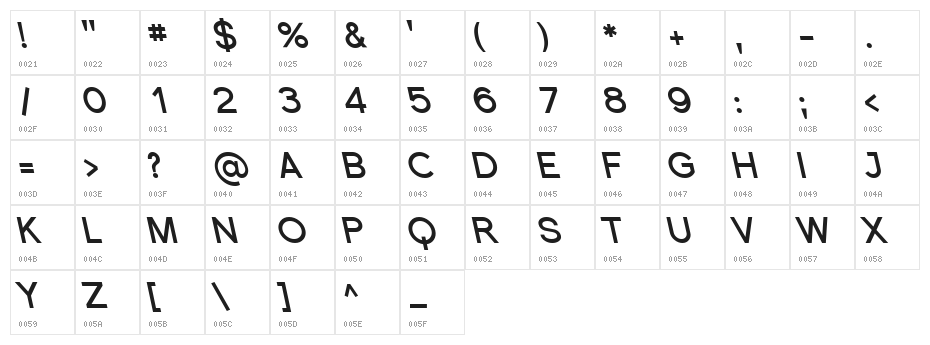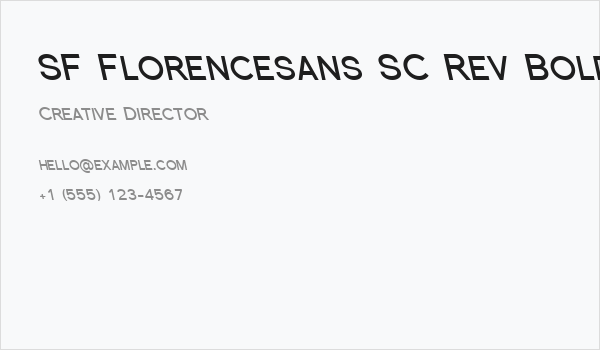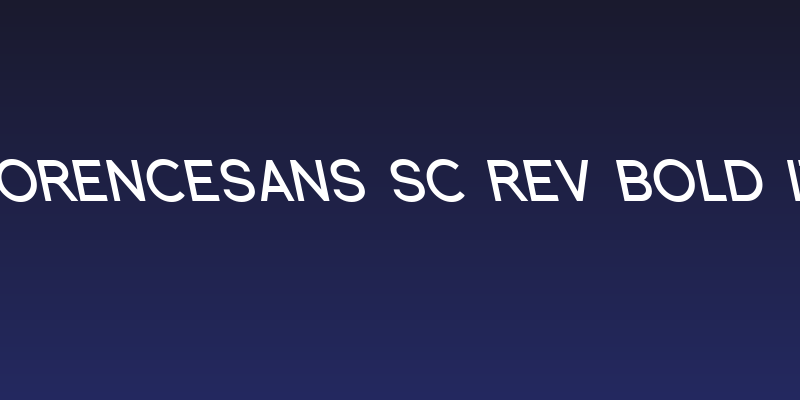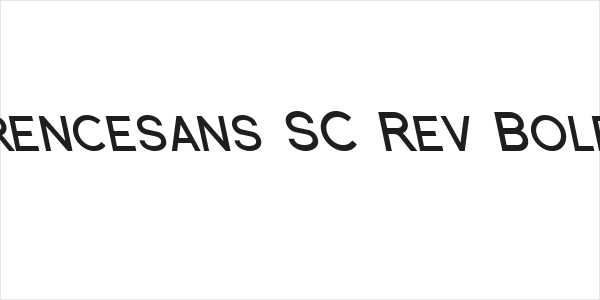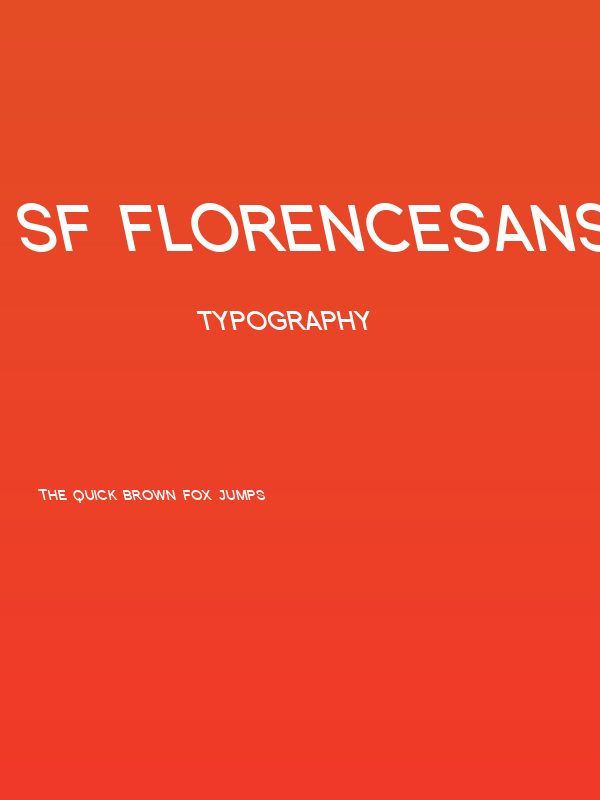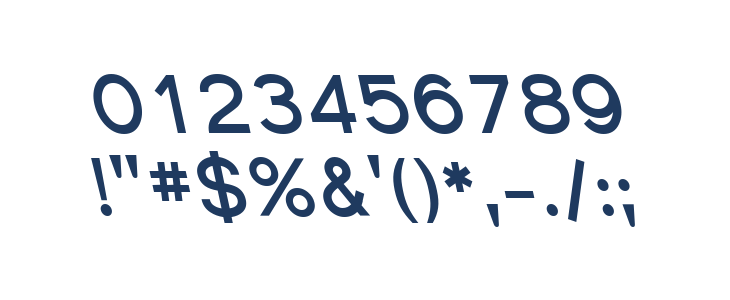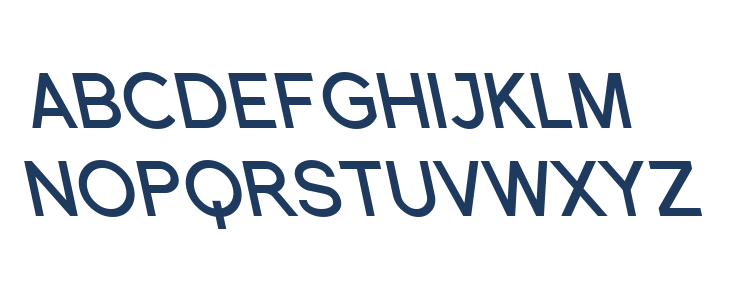
SF Florencesans SC Rev Bold Italic Font
SF Florencesans SC Rev Bold Italic Description
This font features a bold and italic style with a modern sans-serif design. The characters are clean and straightforward, with a slight slant that adds a dynamic feel. The bold weight ensures strong visibility, making it suitable for attention-grabbing text. The uppercase and lowercase letters maintain a consistent style, with rounded edges that soften the overall appearance. Numbers and special characters are clear and well-defined, ensuring readability across various applications.
| Use Case | Headlines, Logos, Advertising |
| Proposed Projects | Ideal for branding, advertising, headlines, and digital media where a strong and modern presence is needed. |